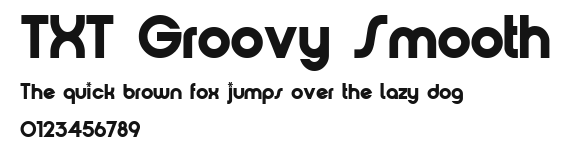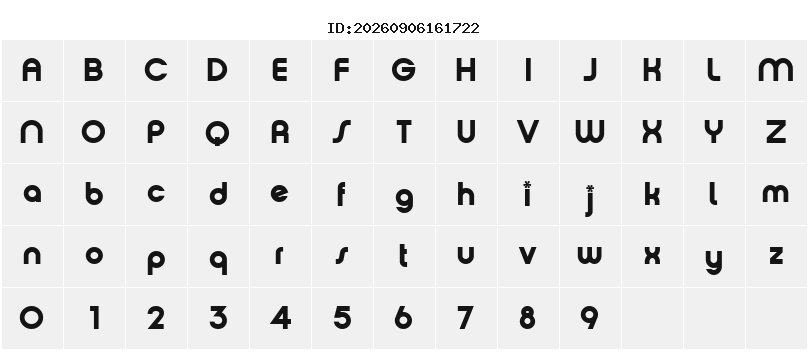
• Font Name: TXT Groovy Smooth
About TXT Groovy Smooth.ttf
TXT Groovy Smooth.ttf is a modern, elegant sans-serif font designed for ultimate readability and visual harmony. Perfect for branding, headlines, web design, and print materials.